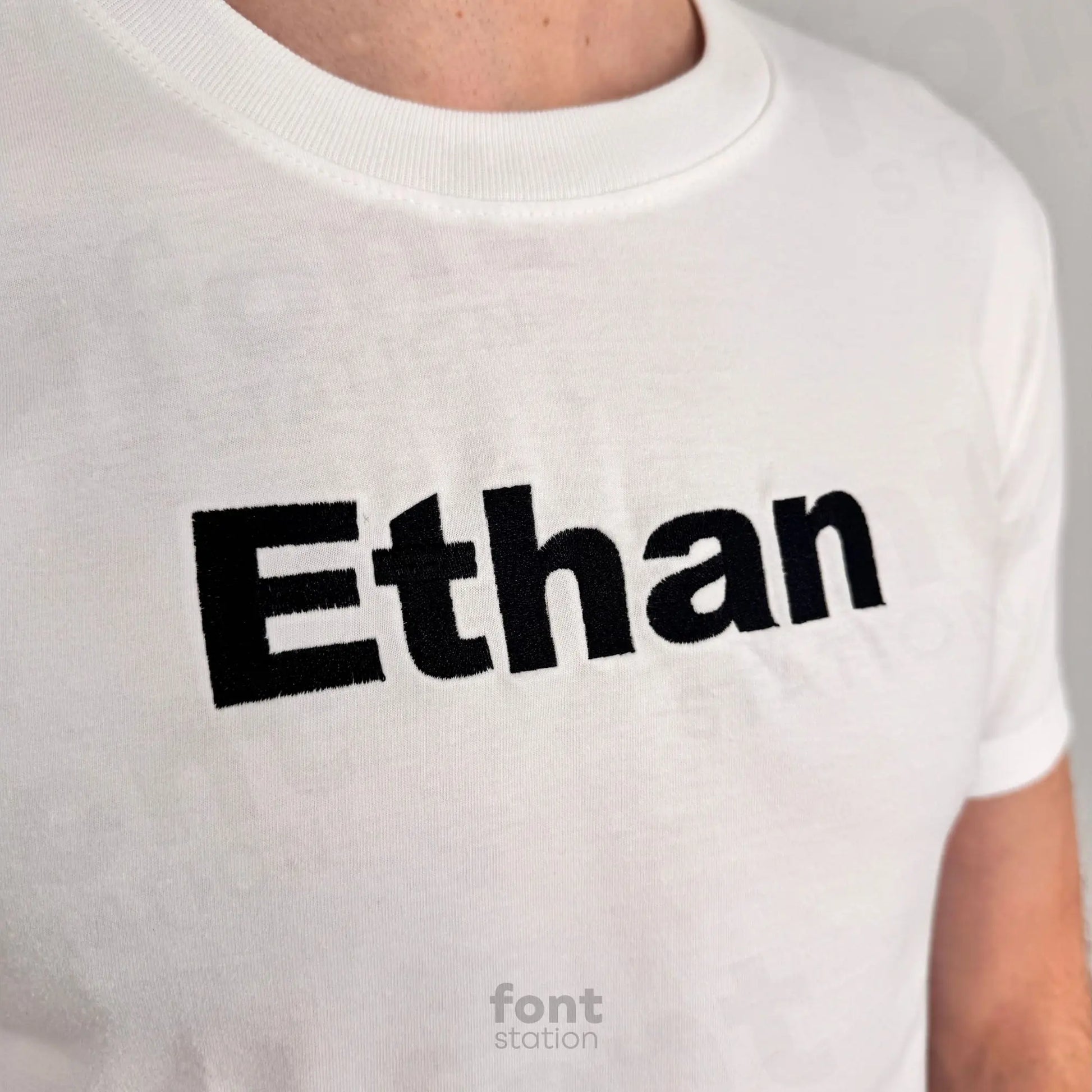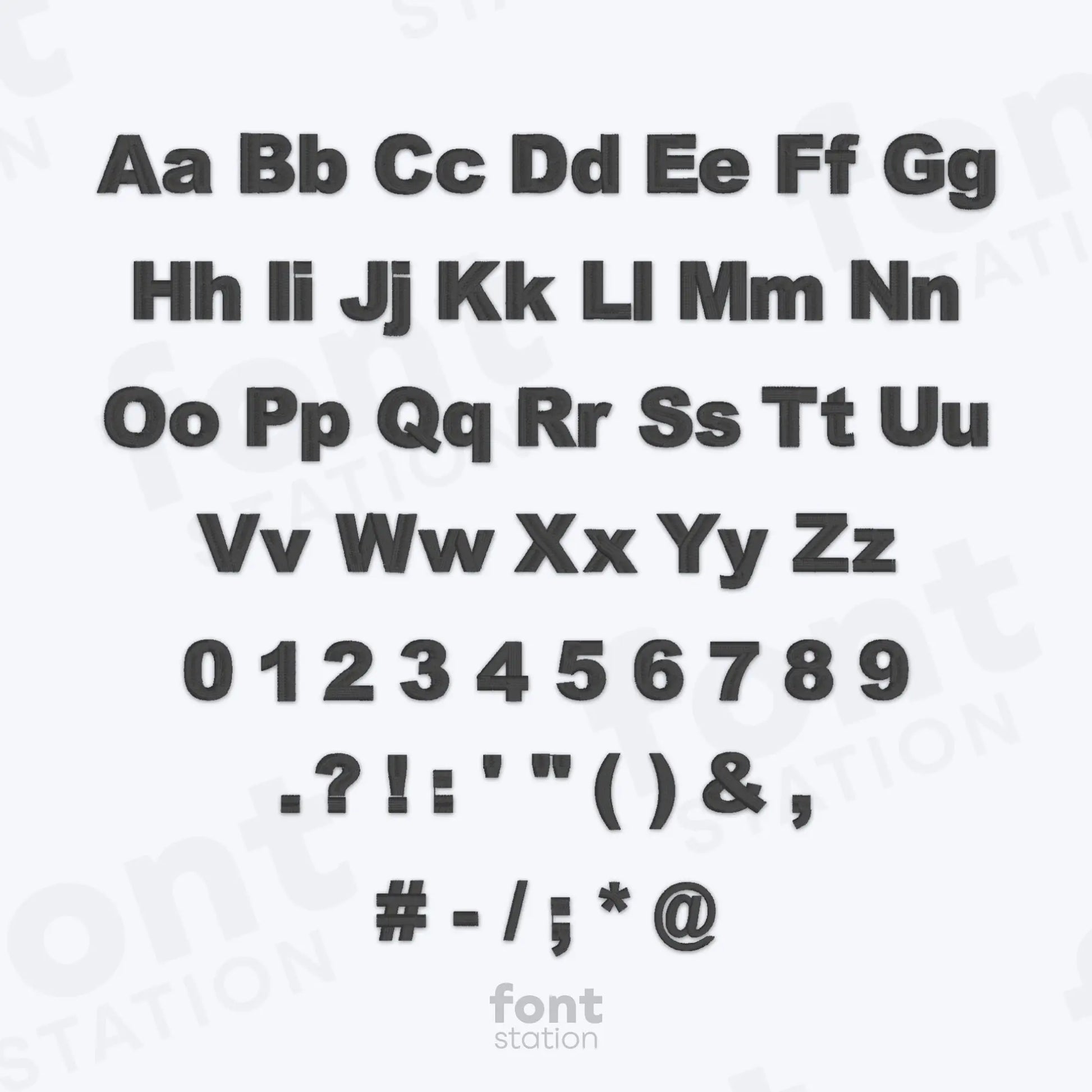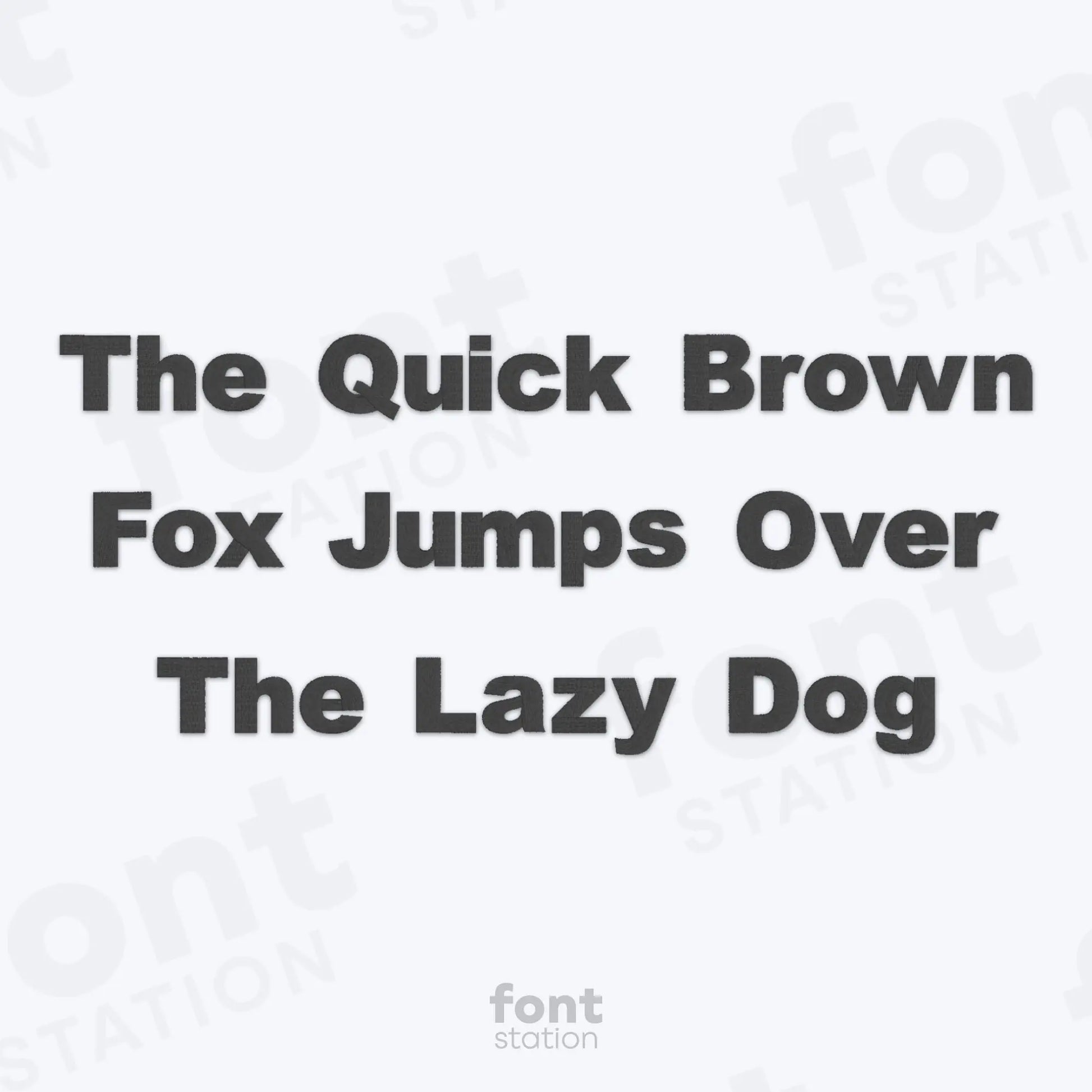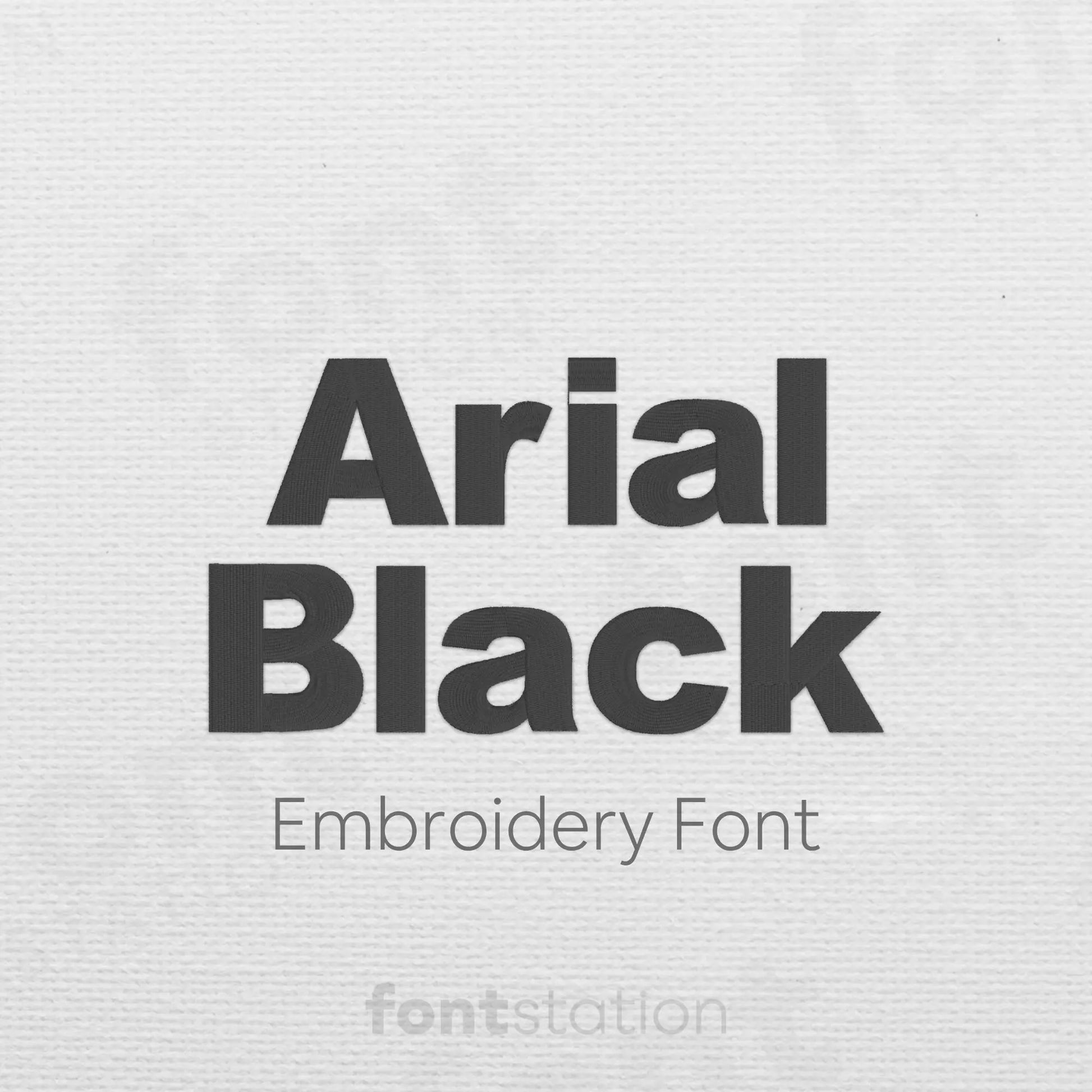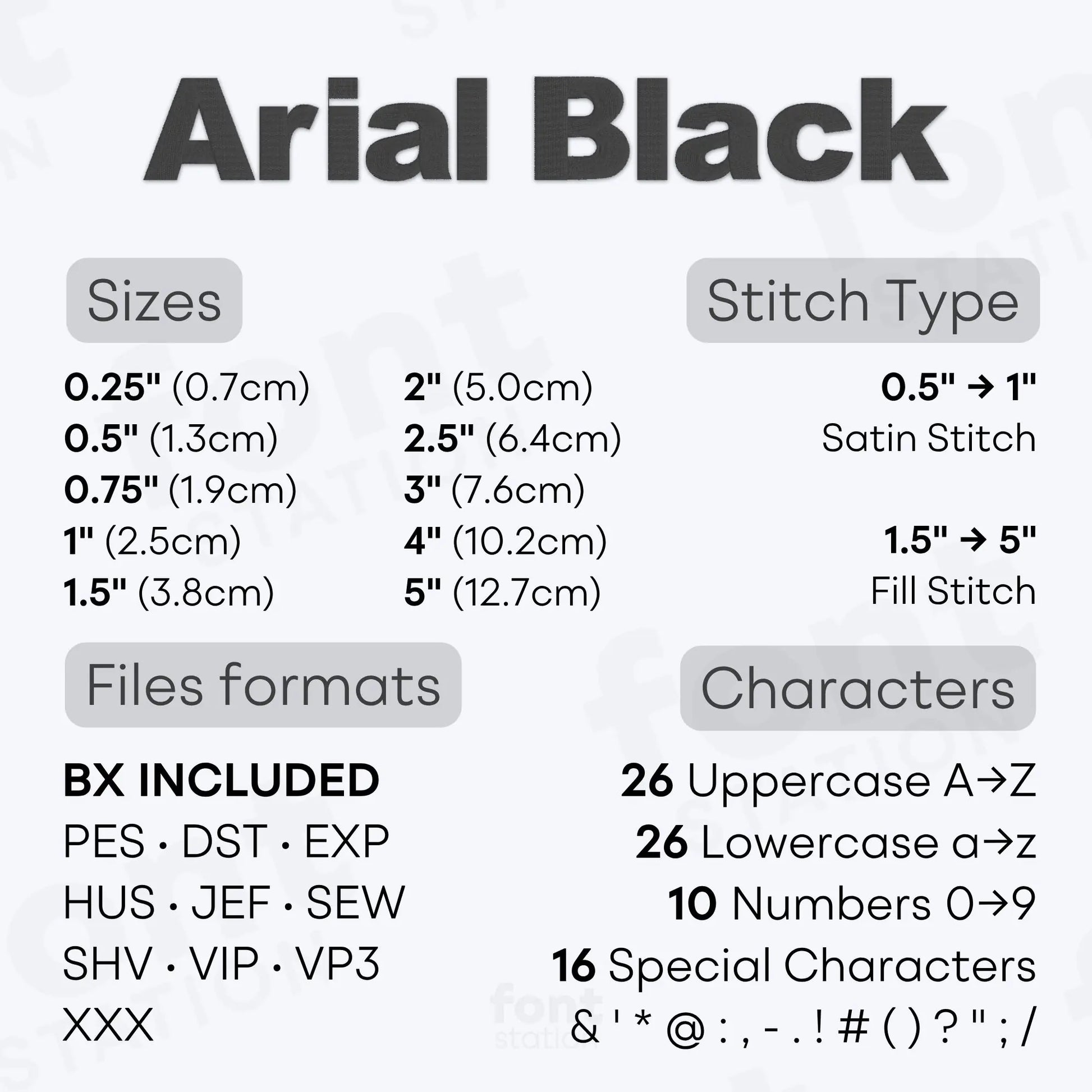
Arial Black Embroidery Font
Introducing our Arial Black embroidery font, a bold modern alphabet with thick letters that stitch beautifully on your embroidery machine. Perfect for standout designs and any powerful project.
About the Arial Black Embroidery Font
Our Arial Black embroidery font brings a bold, modern block style to your embroidery projects.
This powerful machine embroidery font features a clean bold alphabet with thick, highly readable letters designed for strong impact and clear visibility. Perfect for names, logos, uniforms, statement lettering, and modern embroidery designs, it adds a confident, professional look to every project.
Why choose our Thick Embroidery Letters?
• Professional Quality: Each character has been expertly digitized to ensure clean, crisp stitching and excellent embroidery results.
• Versatility: Our font is suitable for a wide range of embroidery projects, from apparel and accessories to home decor and gifts.